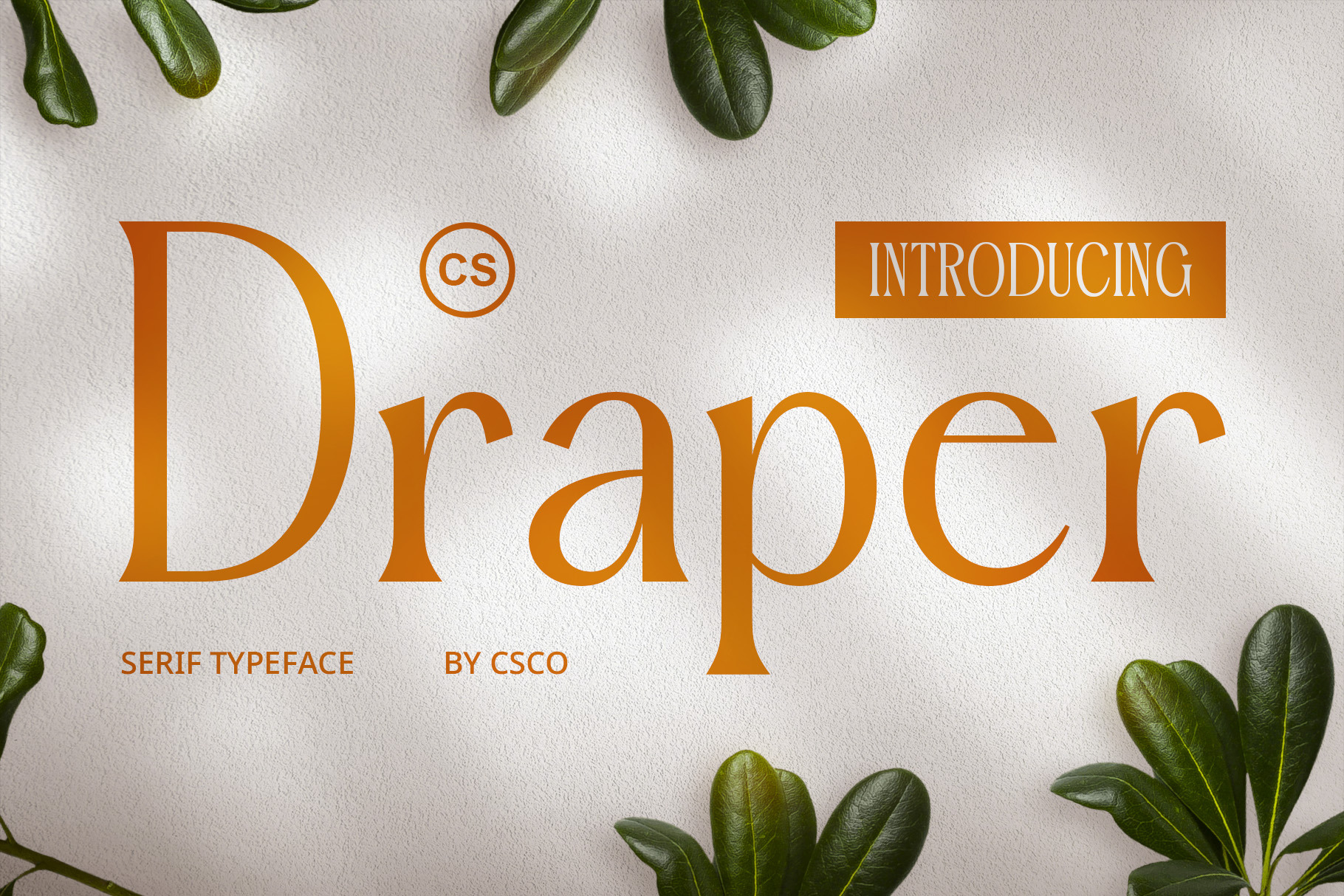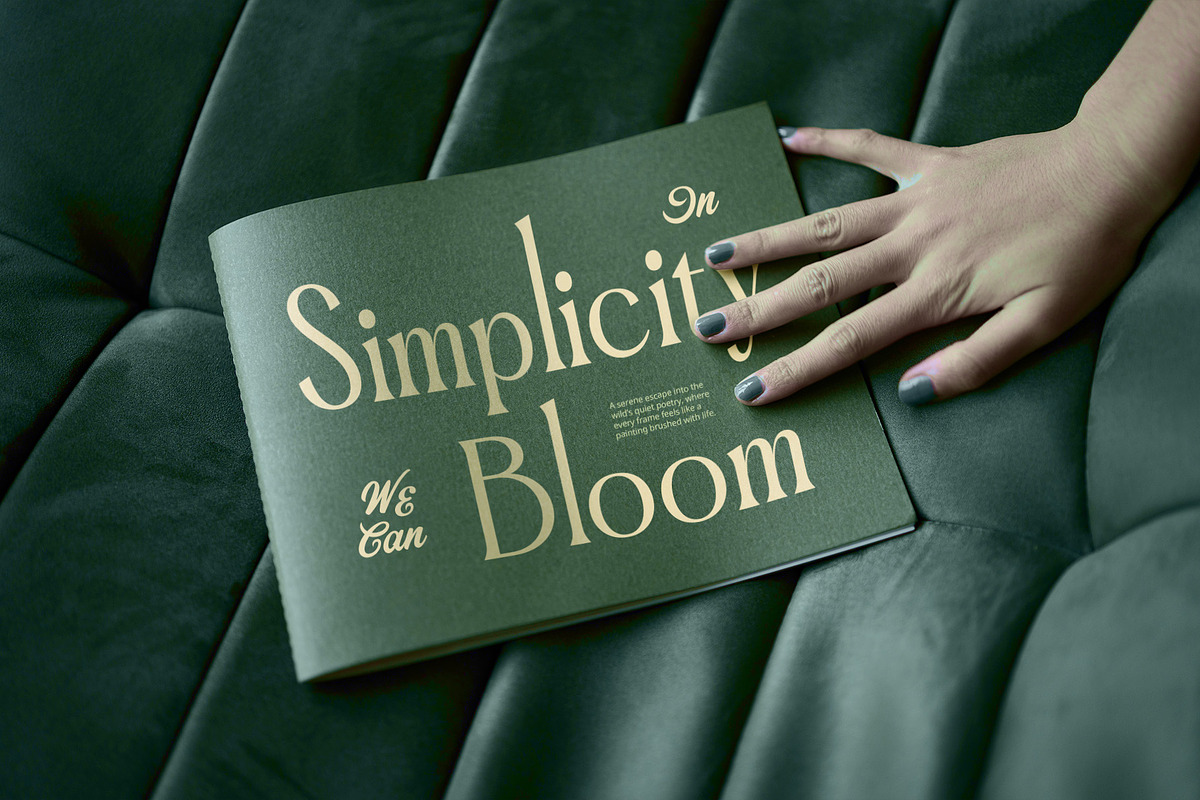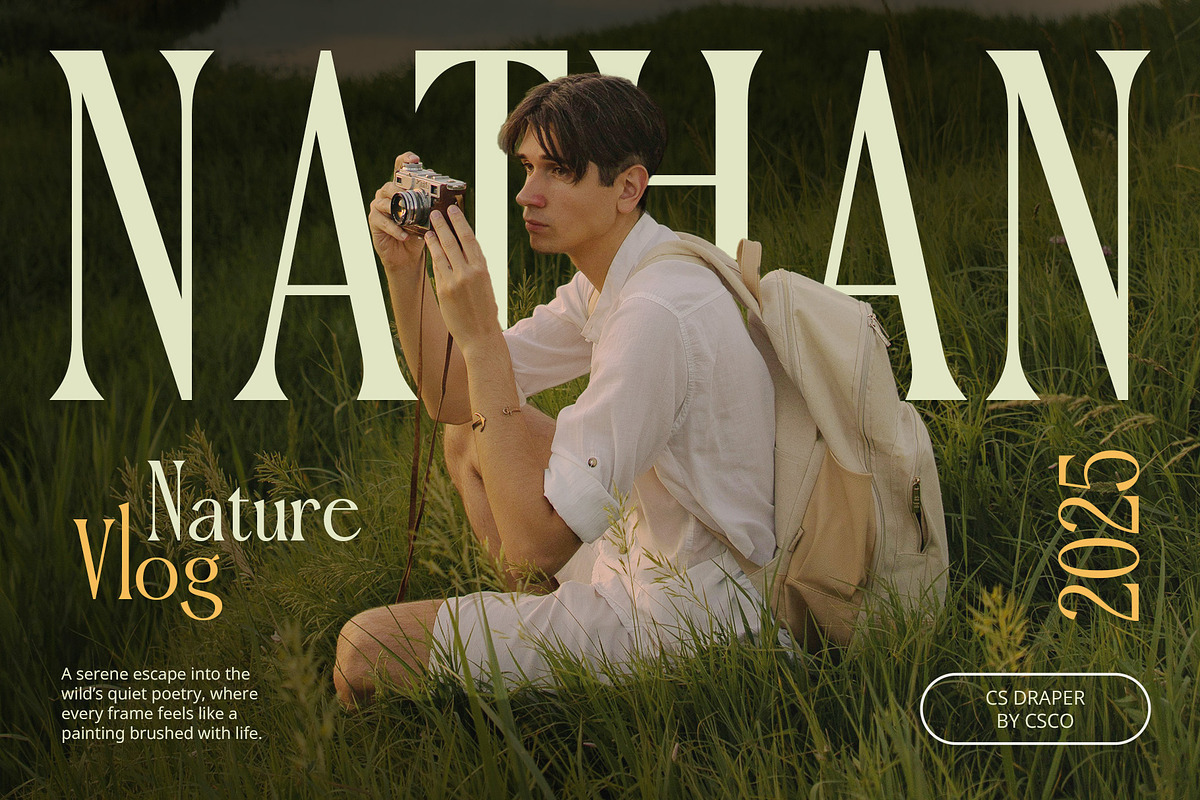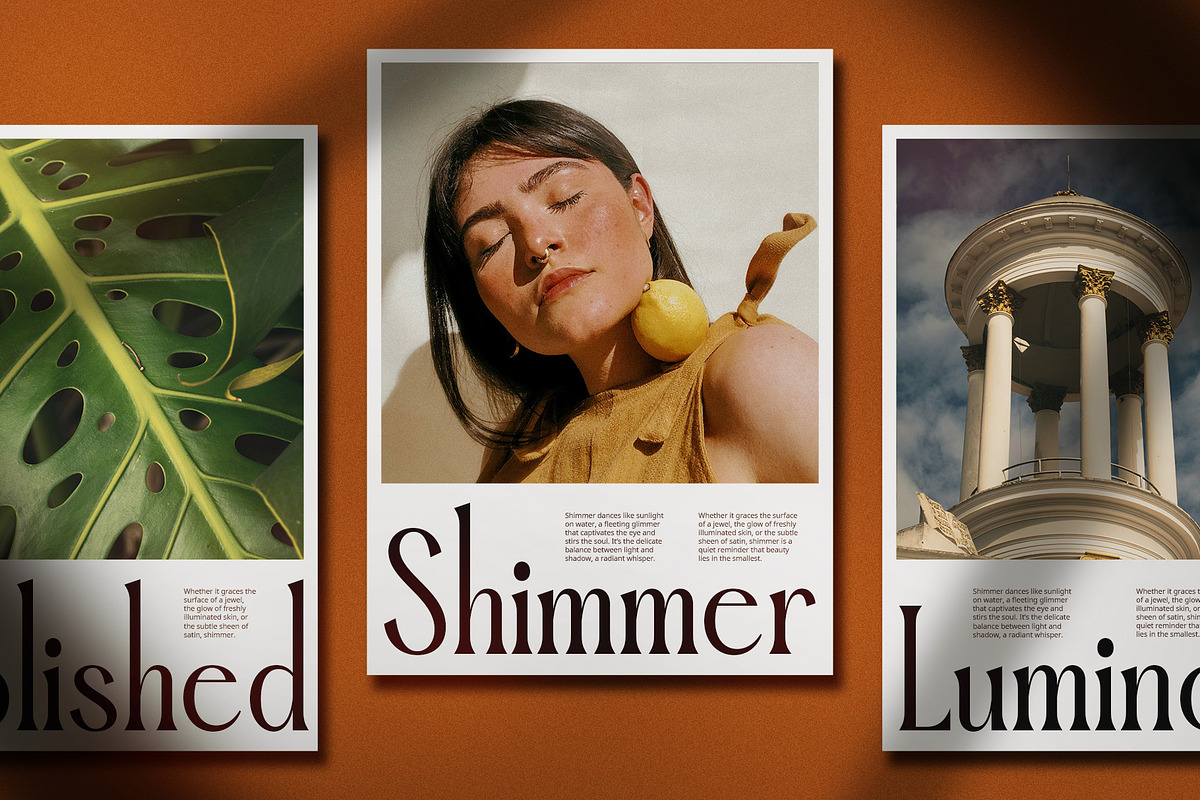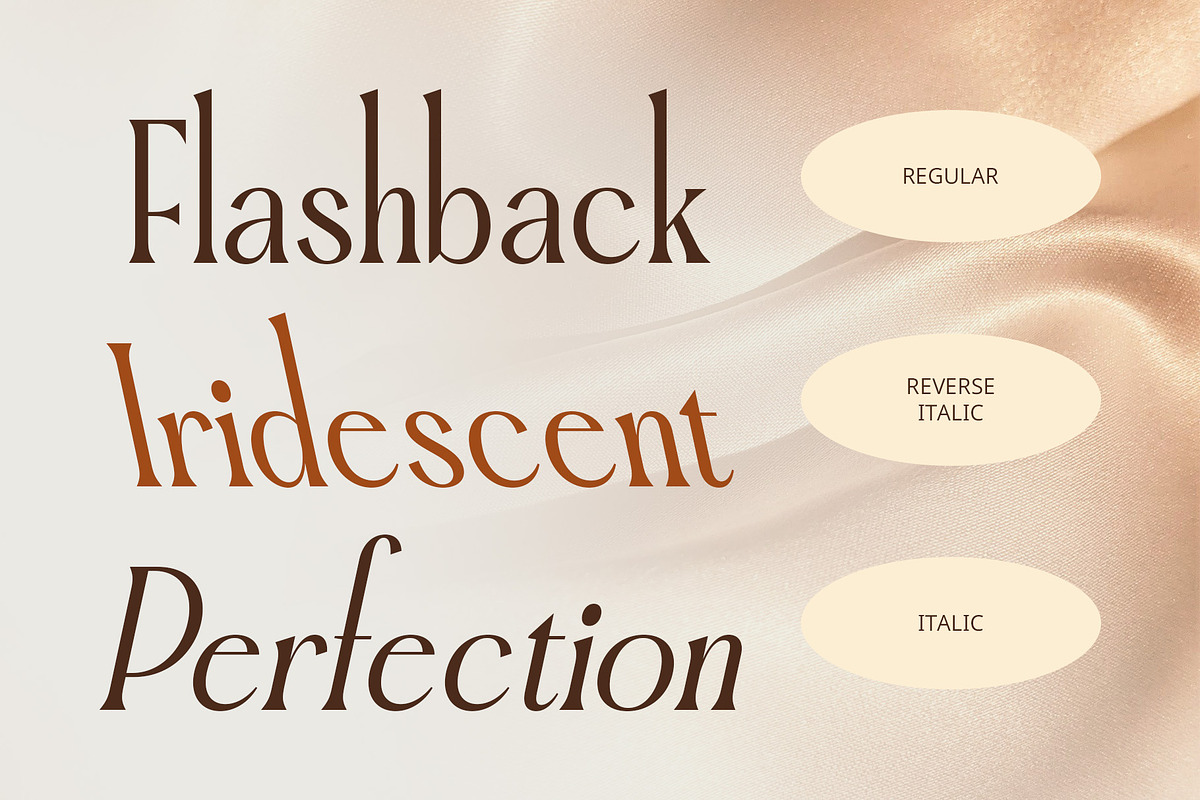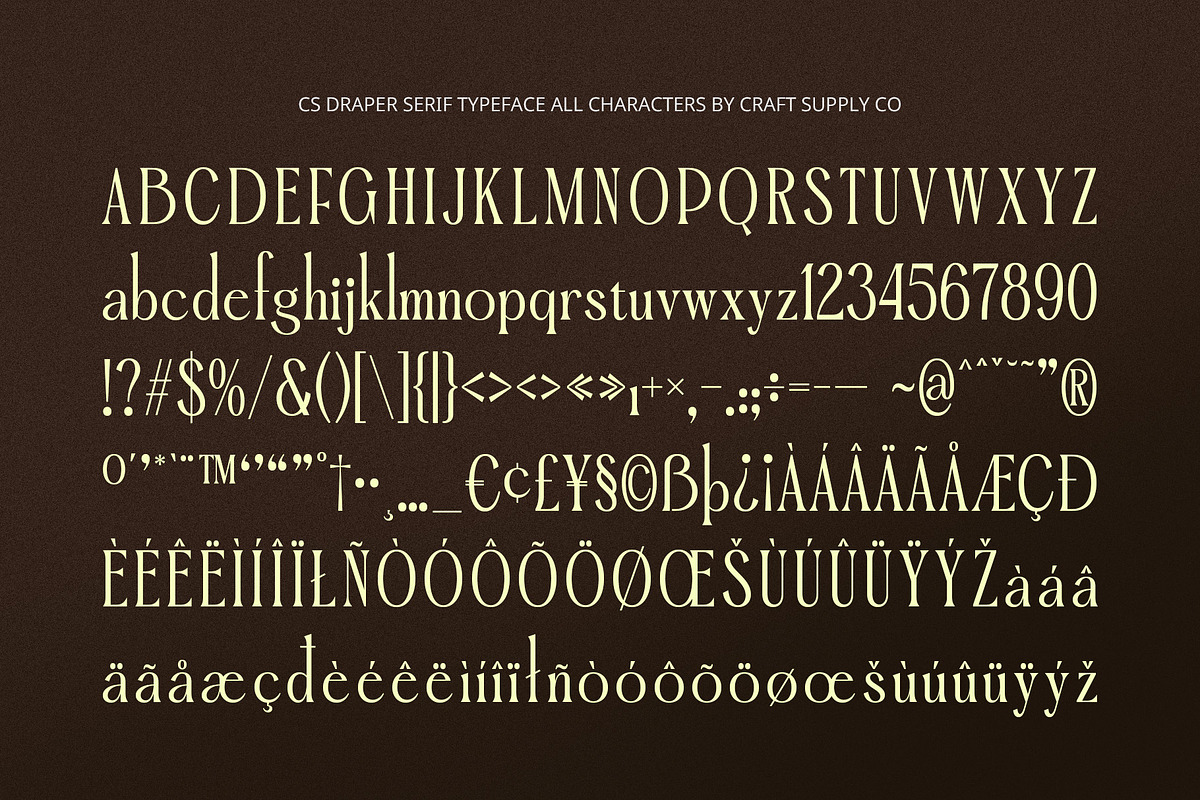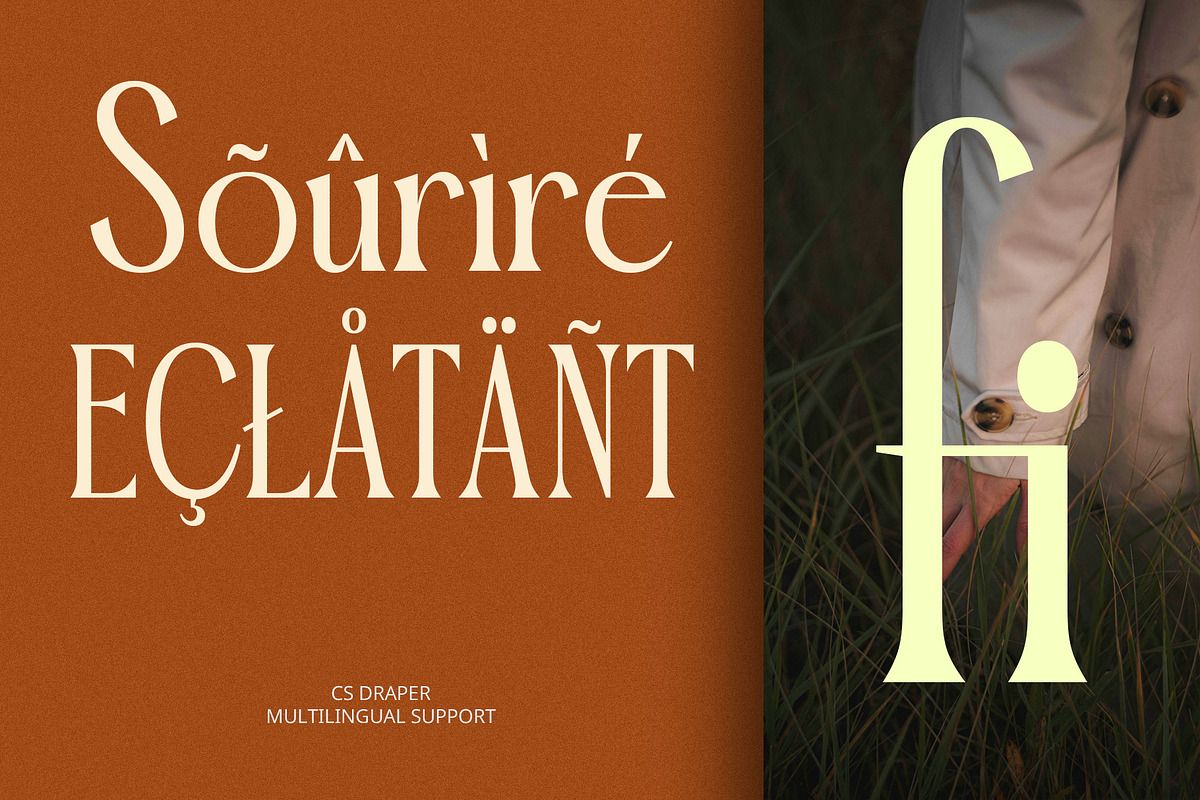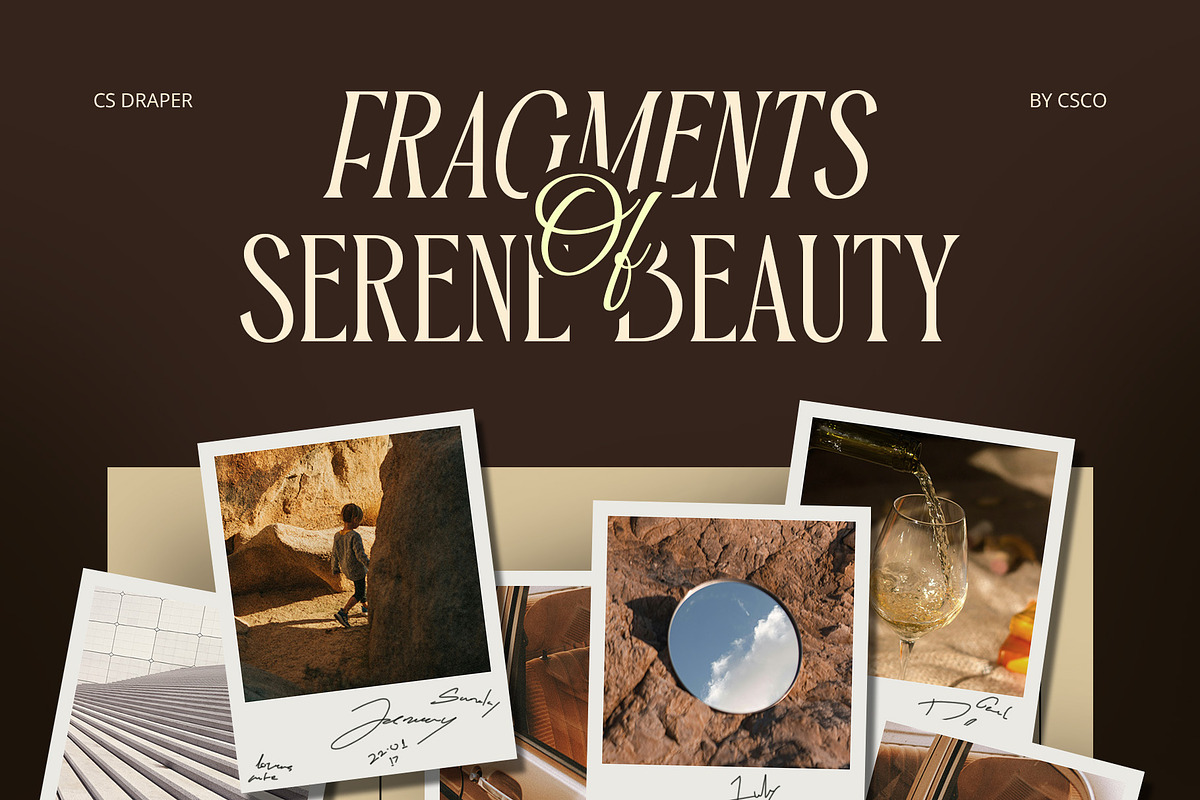
CS Draper – Elegant Font
CS Draper – Elegant Font: A Symbol of Luxury and Professionalism
Modern Serif Font with Long Serifs CS Draper – Elegant Font is a modern serif typeface characterized by its long, sharp serifs, designed to convey sophistication and elegance. The font combines traditional serif elements with contemporary sensibilities, creating a timeless and refined appearance perfect for high-end designs.
Luxury and Formality for Strong Visual Appeal The long, detailed serifs of CS Draper give the font a luxurious and formal look, making it an excellent choice for projects that require a polished and authoritative presence. Whether you’re working on a business card, corporate branding, or editorial project, this font commands attention with its bold, elegant structure.
Perfect for Branding and Business Collateral CS Draper is the go-to font for professional branding and marketing materials. Its carefully crafted design exudes credibility and trust, making it ideal for businesses that want to project a strong and professional image. From logos to business cards, this font ensures a sophisticated and cohesive visual identity.
Exudes Credibility and Trust for Marketing The detailed design of CS Draper imparts a sense of credibility, reliability, and professionalism. Perfect for marketing materials such as brochures, reports, and advertisements, it helps communicate authority while maintaining a stylish, formal look that resonates with a wide audience.